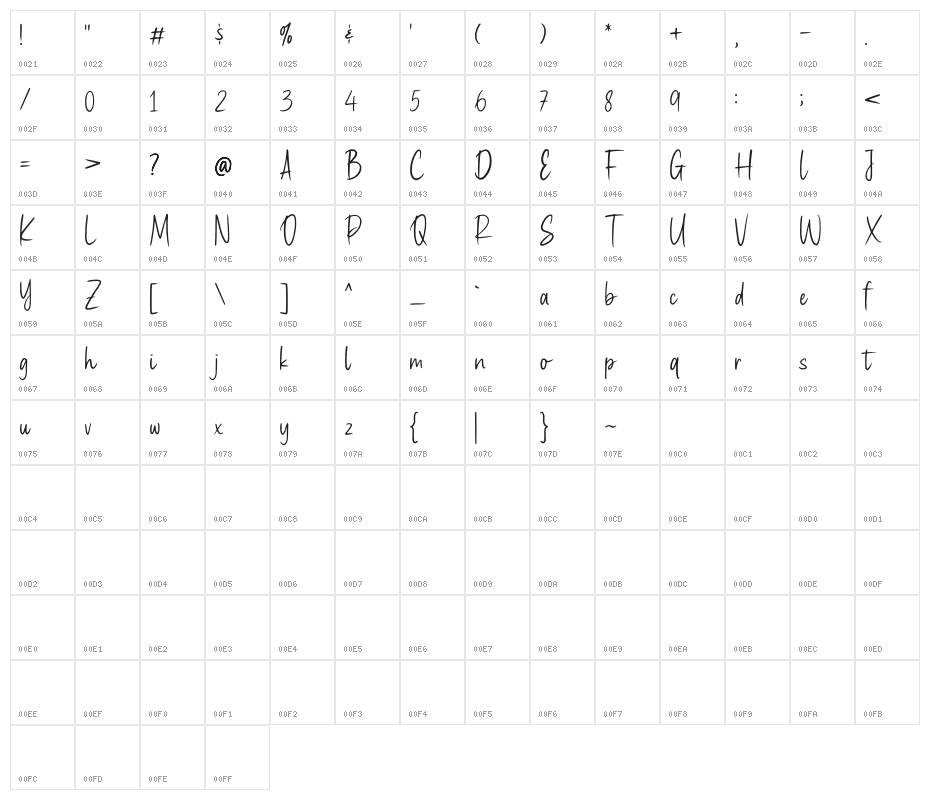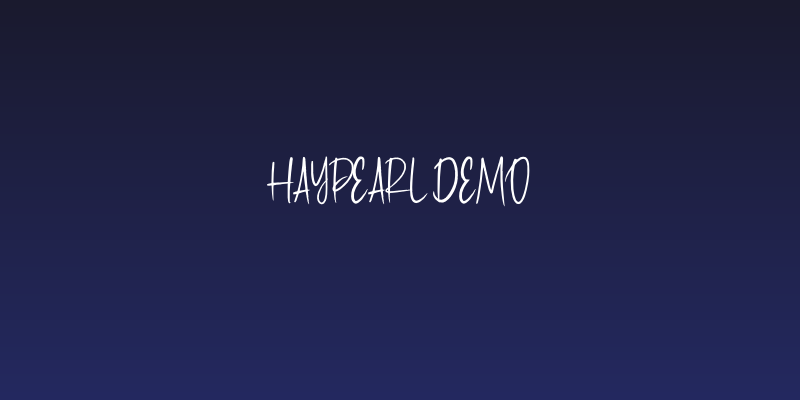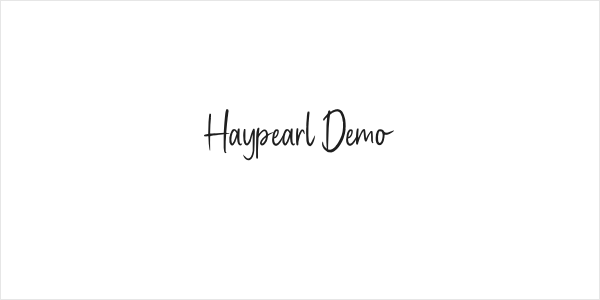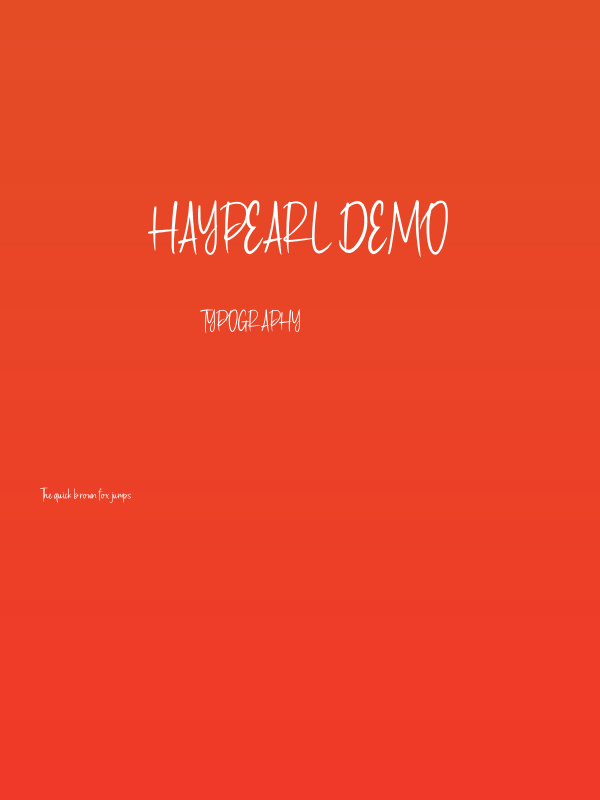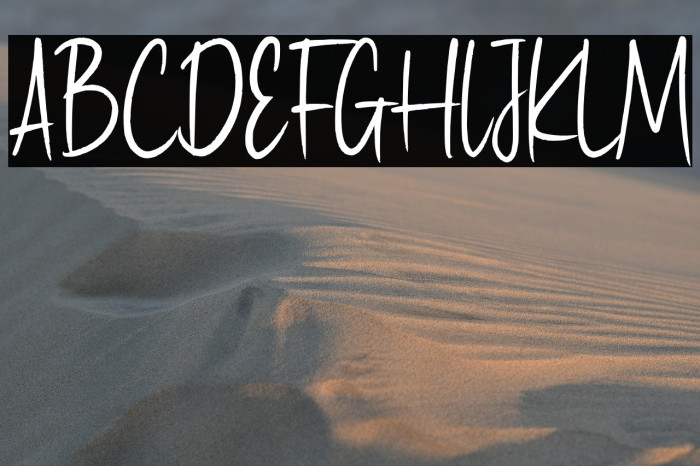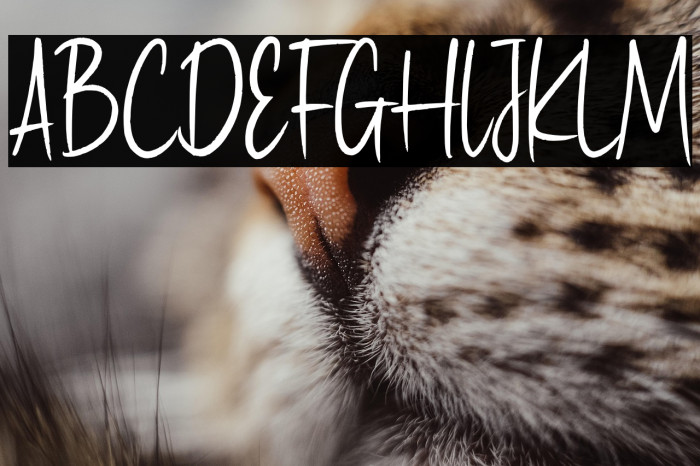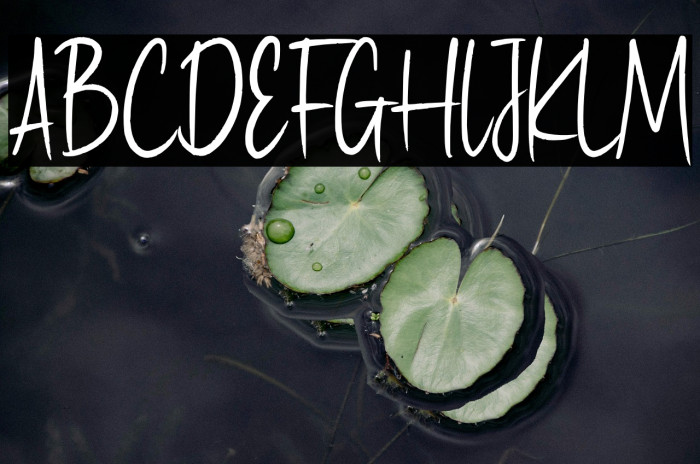
Haypearl Demo Font
Haypearl Demo Description
This font exhibits a lively and energetic handwritten style, characterized by its tall, narrow letterforms and playful curves. The uppercase letters are bold and dynamic, with a slight slant that adds to the casual, informal feel. The lowercase letters maintain a consistent flow, complementing the uppercase with their smooth, rounded shapes. Numbers and special characters follow the same aesthetic, ensuring a cohesive look across all text. The font's overall appearance is both modern and approachable, making it suitable for a variety of creative projects.